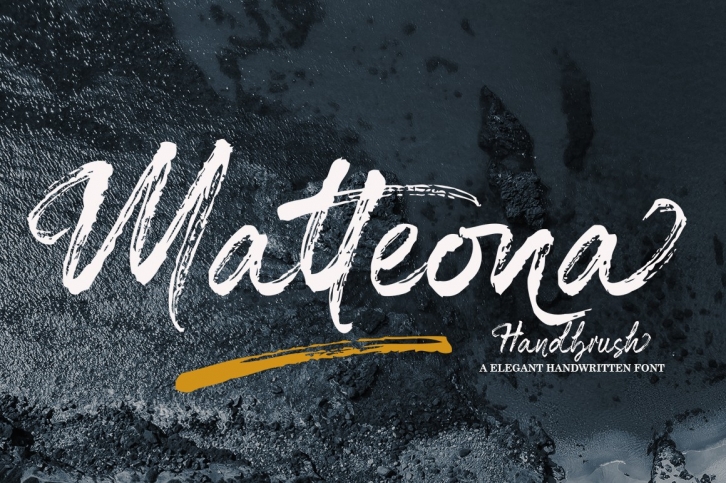
Matteona is a trendy and unique font with an authentic style. It was designed by akifatype and it's a great choice for creative people who need such a font. It was released on February 10, 2020 and the file size is 5.81 MB. Matteona will add an organic vibe to any design idea!